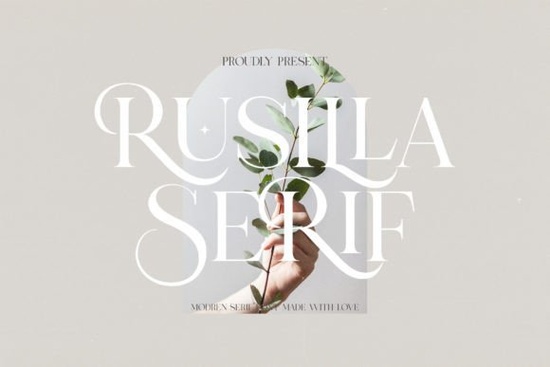
If you're working on a project that calls for elegance and clarity like wedding invitations, luxury packaging, or editorial layouts you’ve probably searched for a serif font that feels both timeless and distinctive. Rusilla Serif Font fits that need beautifully. With its refined letterforms and balanced proportions, it brings a touch of sophistication without overwhelming your design.
Unlike overly ornate serifs that can distract from readability, Rusilla maintains clean lines and subtle detailing, making it versatile across both print and digital formats. Whether you’re designing a novel cover, a boutique label, or a high-end cosmetics brand identity, this font supports your message with quiet confidence.
What kinds of projects work best with Rusilla Serif?
Rusilla shines in contexts where formality meets creativity. Think:
- Stationery and greeting cards – especially wedding suites or anniversary announcements
- Book and magazine layouts – body text or chapter headings with strong legibility
- Logo design for fashion, beauty, or artisanal brands
- Packaging labels for premium food, skincare, or candles
- Advertising visuals that aim for a classic, trustworthy tone
Because it’s a true serif with thoughtful spacing and consistent stroke contrast, Rusilla avoids looking dated. Instead, it feels intentional like something chosen by a designer who values restraint and harmony.
How does it compare to other serif fonts on Creative Fabrica?
Not all serifs serve the same purpose. For example, if you’re after something with more dramatic flair, you might consider Agerola, which leans into vintage calligraphy. Or if your project needs a rustic, handcrafted vibe, Sporty Tee Distressed offers texture and edge but it’s not suited for formal documents.
On the other hand, Valdo shares Rusilla’s clean aesthetic but uses sharper terminals and tighter spacing, giving it a more modern editorial feel. Meanwhile, Golden Batch blends serif structure with slight brush-like variations, ideal for lifestyle or café branding.
Rusilla sits comfortably in the middle: polished enough for luxury applications, yet neutral enough to pair well with sans-serifs or minimalist layouts.
Tips for pairing Rusilla with other typefaces
Because Rusilla has a calm, structured presence, it pairs well with simple sans-serifs that don’t compete for attention. Try combining it with fonts like Montserrat, Lato, or even a geometric sans like Futura for contrast. Keep the sans-serif in lighter weights (e.g., Regular or Light) to let Rusilla carry the visual weight in headlines or titles.
For monochromatic designs like black-and-white stationery or minimalist packaging lean into Rusilla’s natural rhythm. Use generous leading (line spacing) and ample margins to highlight its elegance without adding decorative elements.
If your goal is clarity with character and you want a serif that won’t date your design in six months Rusilla Serif Font is a reliable, tasteful choice worth trying in your next project.